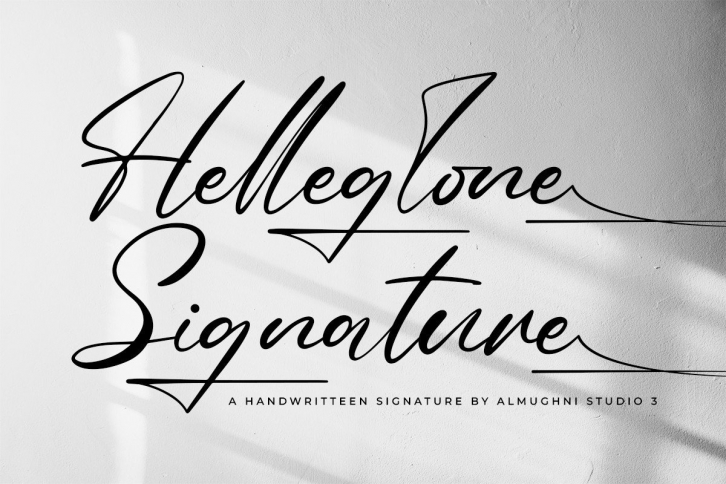
Helleglone Signature is a dazzling script font. This font is neatly crafted and highly detailed. Whatever the topic, this font will be a wonderful asset to your font library, as it has the potential to enhance any creation.
This font is PUA encoded which means you can access all glyphs and swashes with ease!